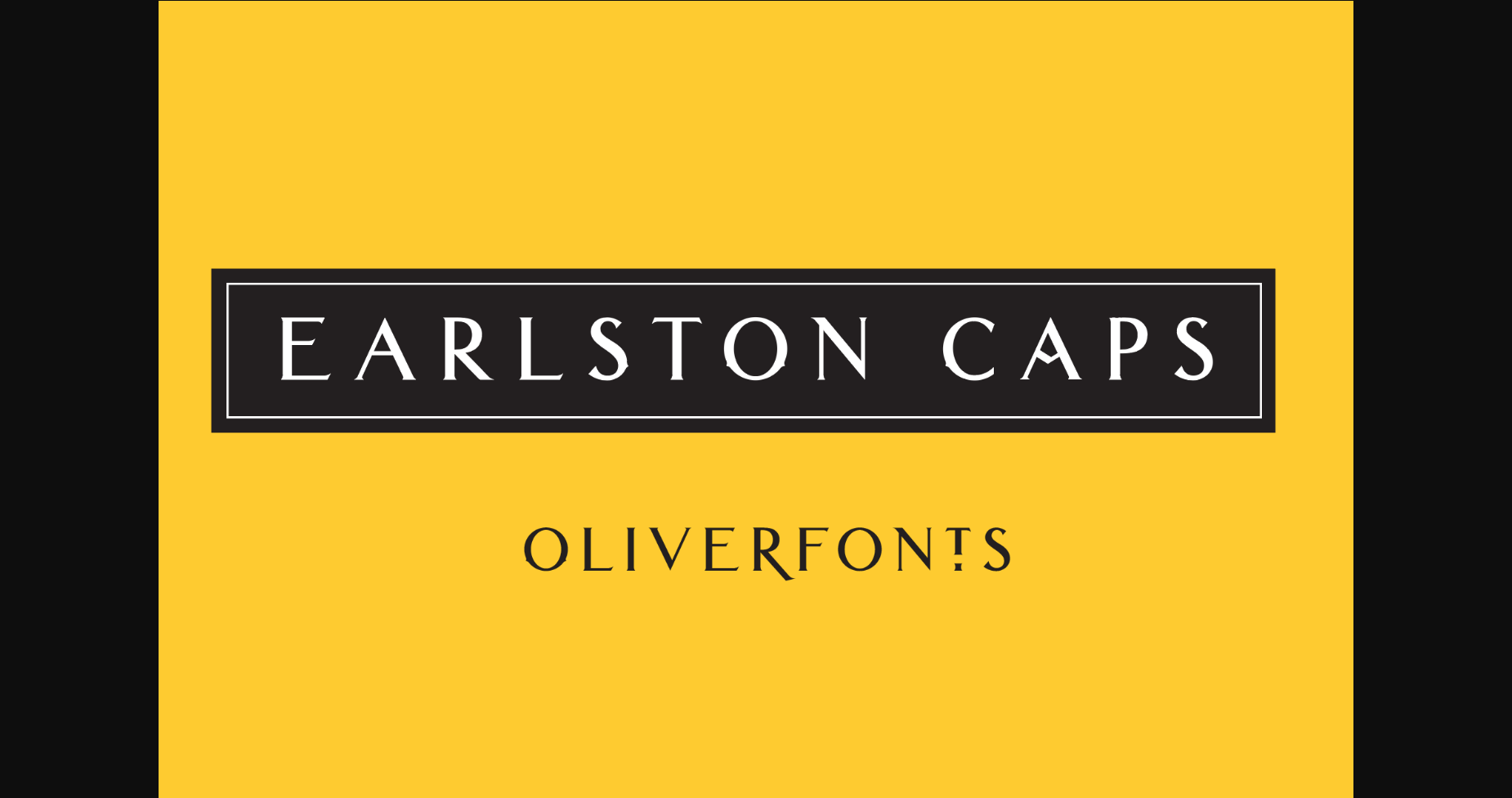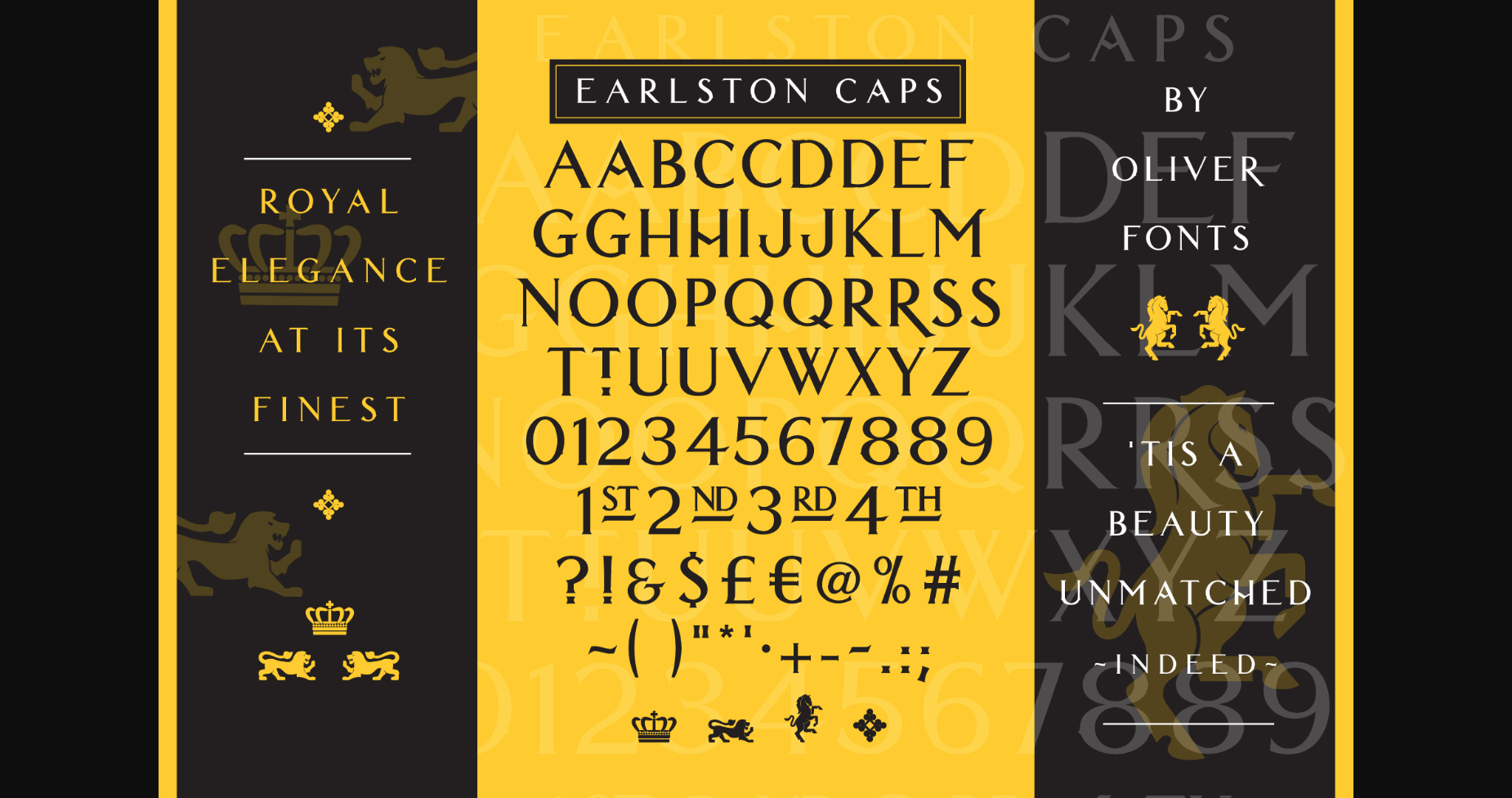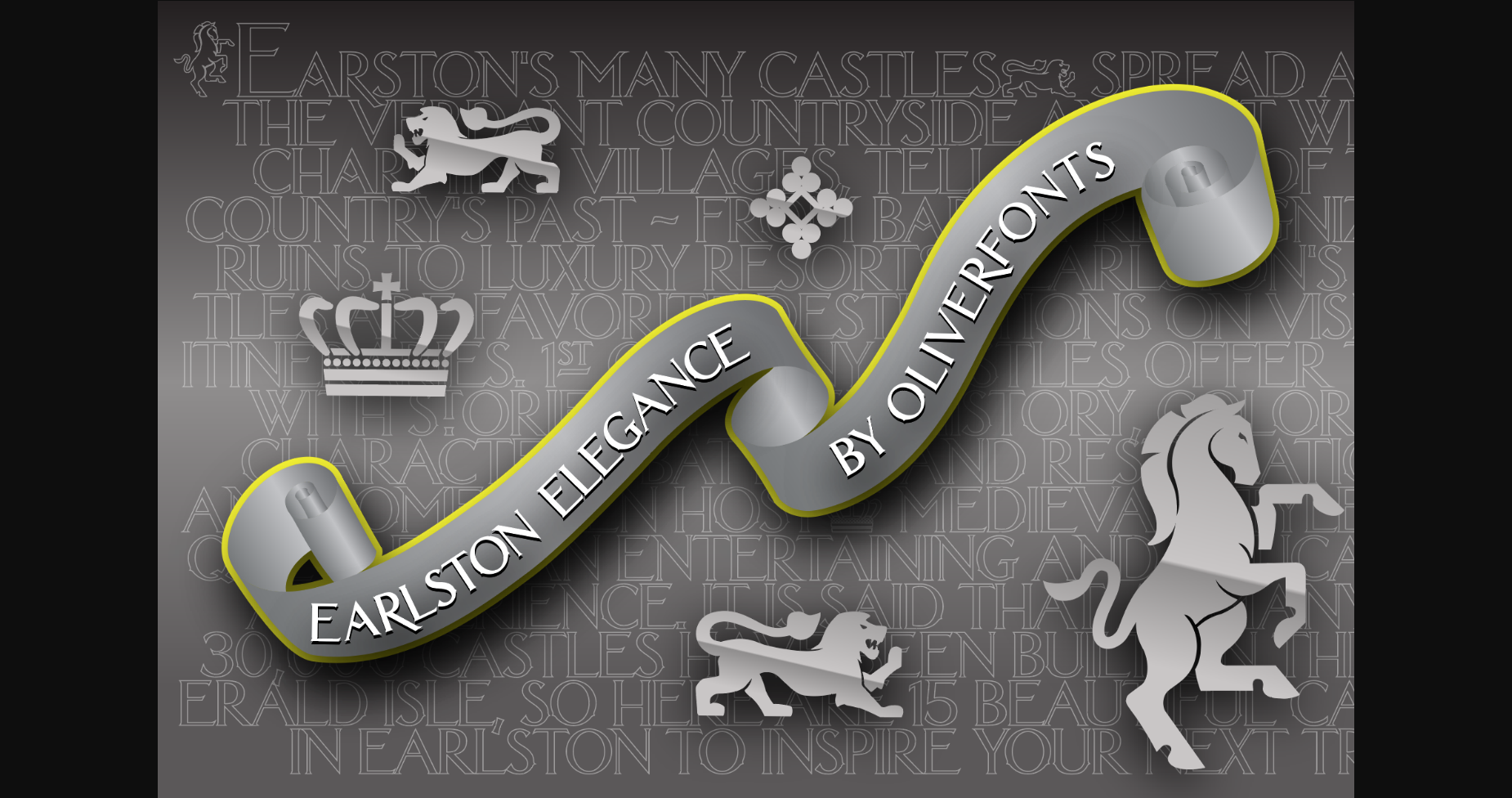
HomeSans Serif FontsEarlson Caps Font Sans Serif Fonts Earlson Caps Font FacebookXPinterestWhatsApp 1 of 5 ... Earlson Caps Font Poster 2... Earlson Caps Font Poster 3... Earlson Caps Font Poster 4... Earlson Caps Font Poster 5... About Earlson Caps Font Earlson Caps has a classical, regal beauty and style of its own with unique glyphs that offer elegance and class to any design project. What better way to capture that magic touch to your next creative endeavor? DOWNLOAD NOW People also explored Heart Garden Font Beer Styles 4 in 1 Love Forever Font Farmhouse Minimalis Font Ratinah Font Helsinki Camping Font Golden Frame Mockup with Magenta Pink Tulips in Golden Vase Green Garden Font 294 0 TagsEarlson Caps Font Previous articleLoominaire FontNext articleWostelkan Font LEAVE A REPLY Cancel reply Comment: Please enter your comment! Name:* Please enter your name here Email:* You have entered an incorrect email address! Please enter your email address here Website: Save my name, email, and website in this browser for the next time I comment. Personal Use Free Anjhay Personal Use Free Read more about this font Shnobel Personal Use Free Read more about this font Krabuler Personal Use Free Read more about this font Hatia Script Personal Use Free Read more about this font BLOG Free Fonts Risk: Why Free Fonts Can Be Dangerous for Designers Free Fonts Risk: Why Free Fonts Can Be Dangerous for Designers Using free fonts is a common practice in web and graphic design. However, the... Top 10 Handwritten Fonts That Elevate Your Designs The 10 Best Handwriting Fonts to Add Personality to Your Designs Elegant Wedding Invitation Fonts – Handwritten & Script Fonts